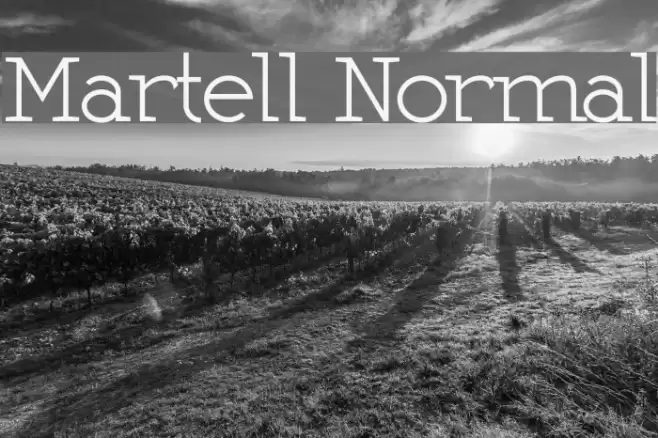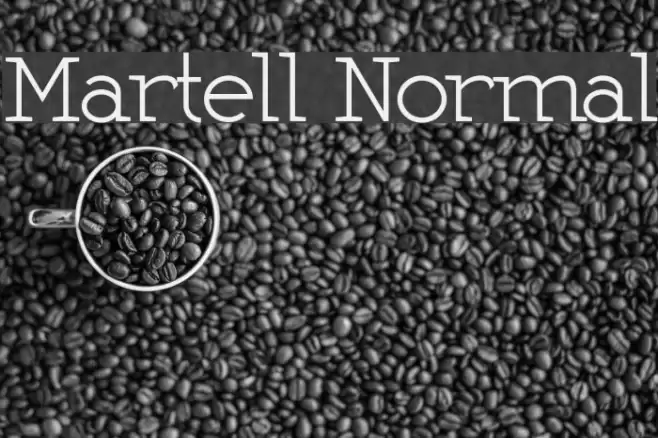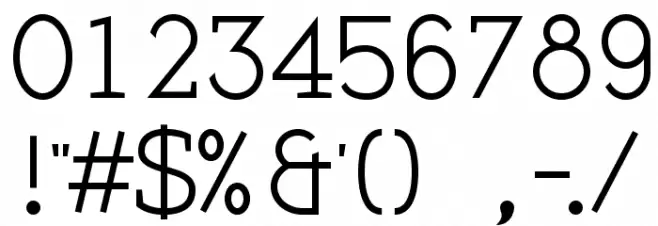
Martell Normal Font
Martell Normal Description
This font features a clean and modern design with a touch of elegance, characterized by its thin, uniform strokes and minimalistic serifs. The uppercase letters are tall and slightly condensed, providing a sense of sophistication and formality. The lowercase letters maintain a consistent height, offering a harmonious balance with the uppercase set. Numbers are clear and easy to read, with a uniform thickness that complements the overall style. Special characters are well-defined, maintaining the font's sleek appearance. The spacing between characters is normal, ensuring readability and a smooth visual flow.
A modern serif font with thin, uniform strokes and minimalistic serifs from Uncategorized fonts.
- Proposed Projects: Ideal for editorial design, branding, and corporate communications where a modern yet classic look is desired.